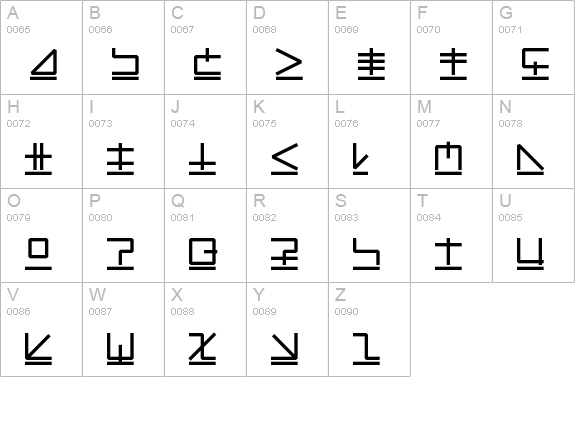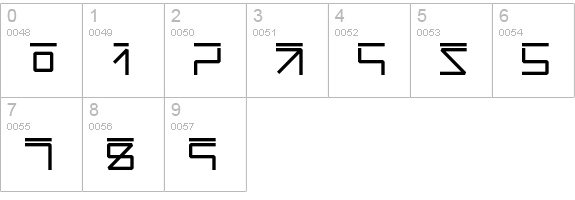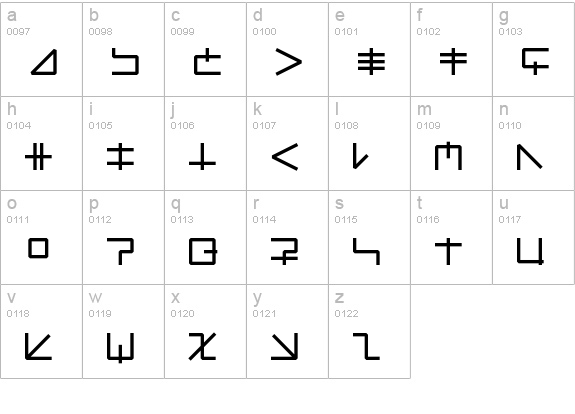
LinearKonstrukt Font Details
LinearKonstrukt font is a modern and sleek typeface that exudes sophistication and simplicity. With its clean lines and geometric shapes, this font is perfect for a wide range of design projects, from branding to editorial design. The uniform stroke width and sharp angles give LinearKonstrukt a contemporary feel that is both professional and stylish. What sets LinearKonstrukt apart is its versatility. Whether you're looking to create a bold headline or a subtle body text, this font can adapt to your needs with ease. Its minimalist design ensures that your message remains clear and impactful, while still adding a touch of elegance to your designs. Best of all, LinearKonstrukt is completely free to download at FontsMarket.com. This means you can easily access this high-quality font and incorporate it into your projects without any cost. Don't miss out on the opportunity to enhance your designs with the sleek and modern look of LinearKonstrukt font today!